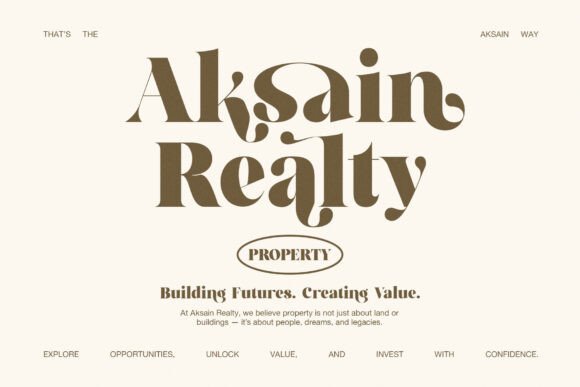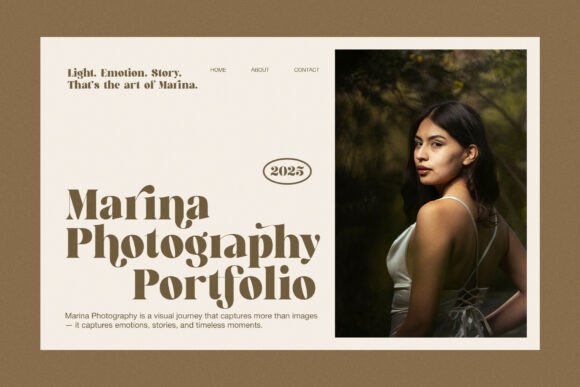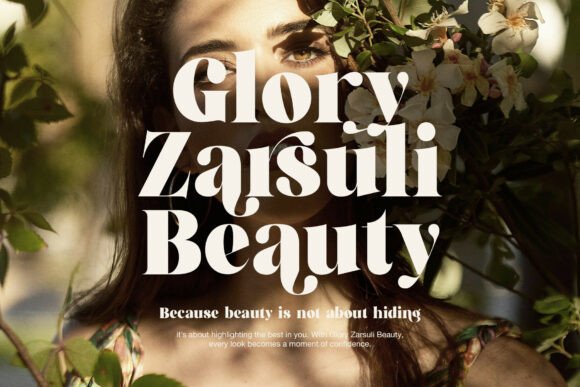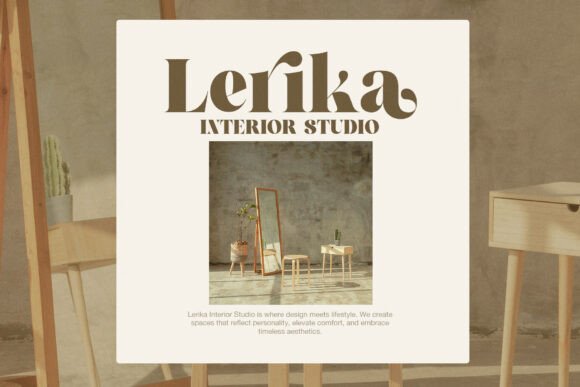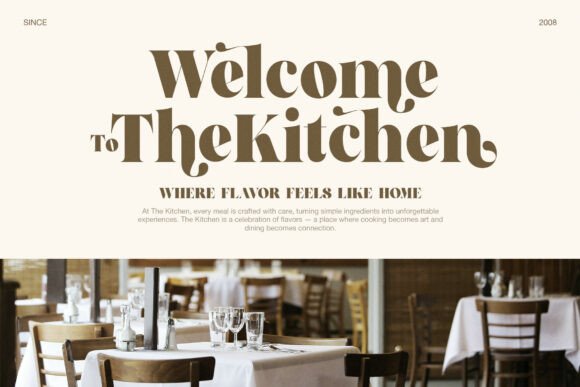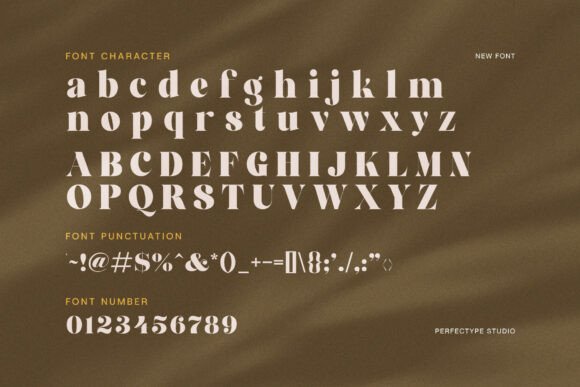
Introduction to Kyrang Font
Kyrang Elegant Serif Font is a clean and modern serif font that brings style and ease to your designs.
Its smooth curves and clear lines create a fresh look that feels both simple and classy Because of this, the font fits many uses like branding, magazines, packaging, and wedding invitations.